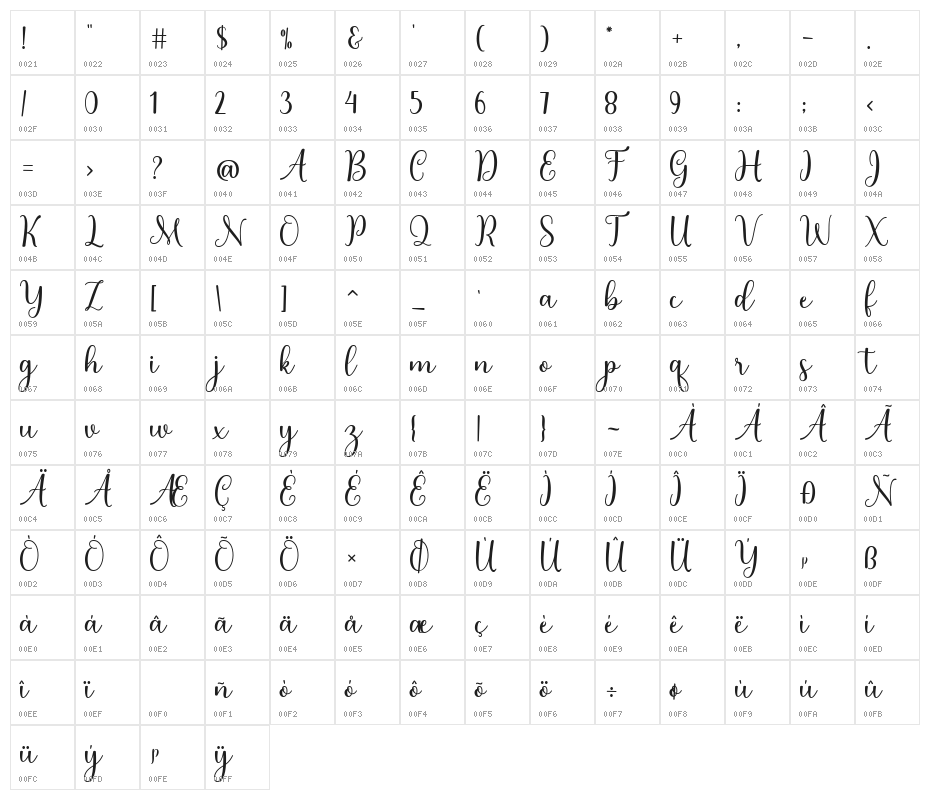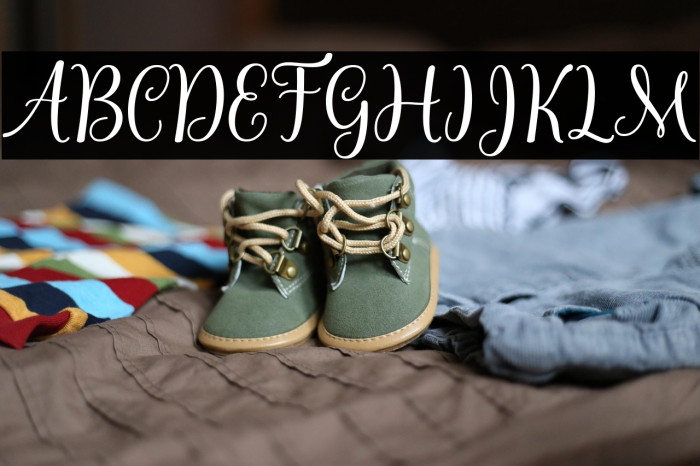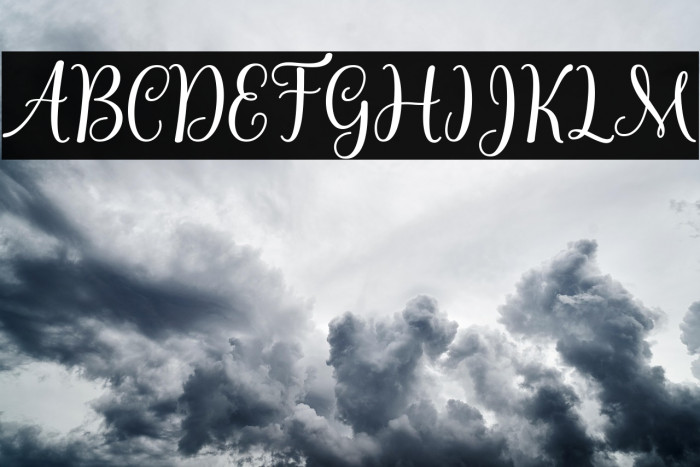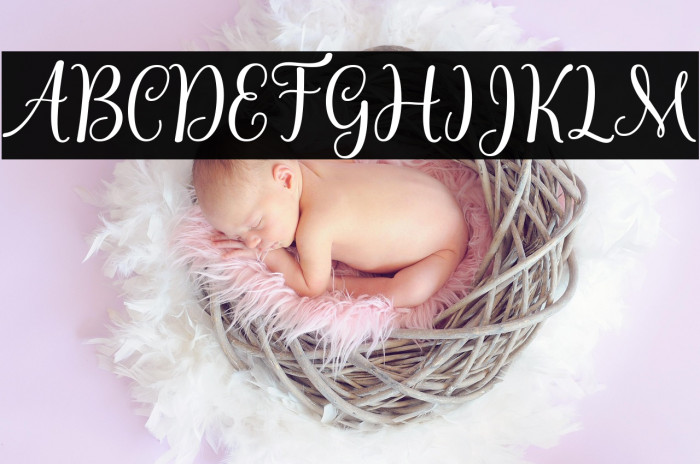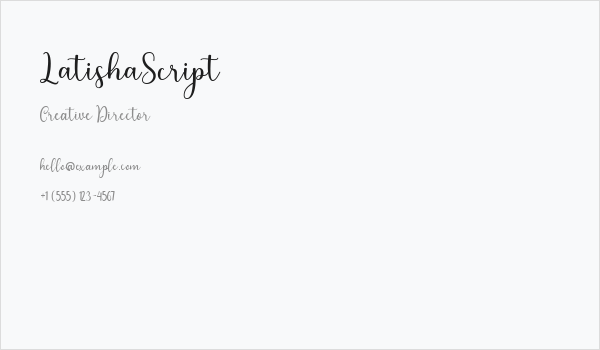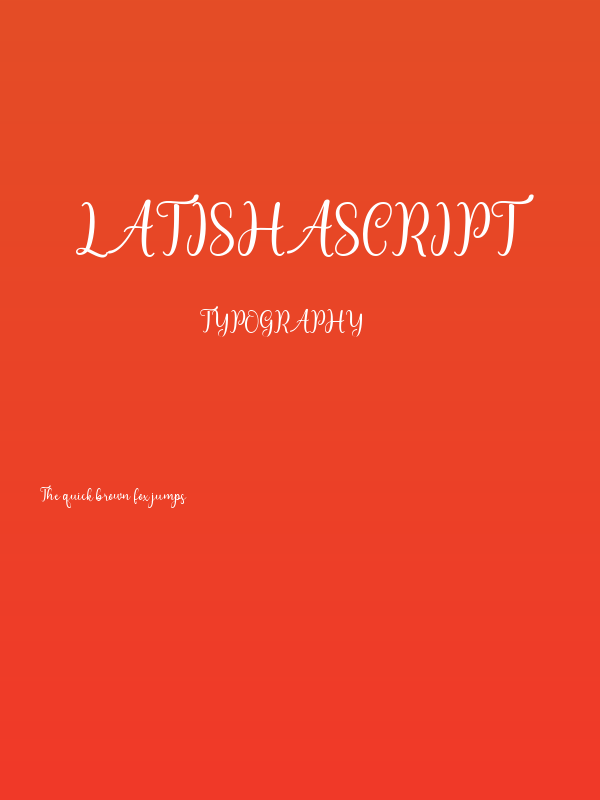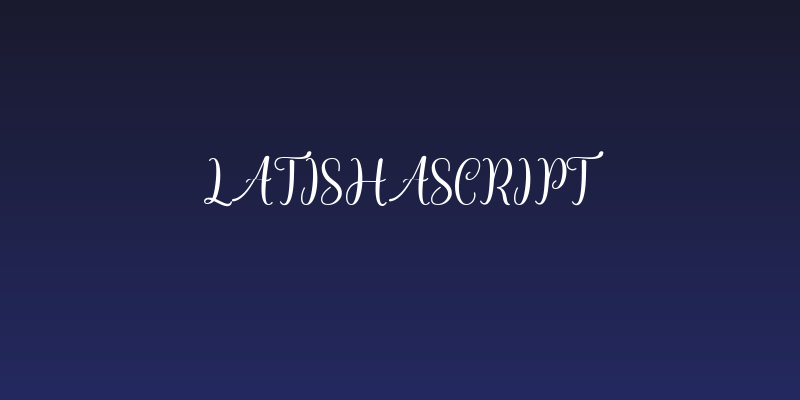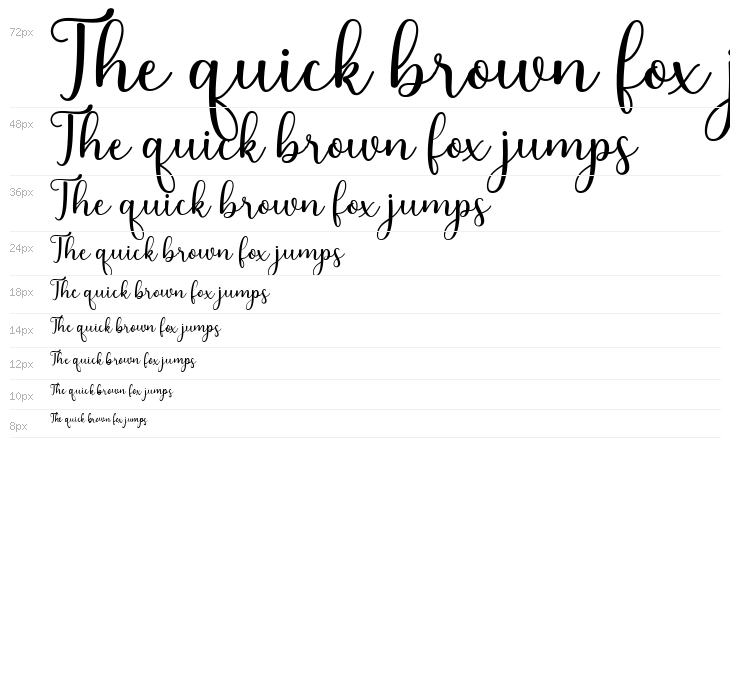
LatishaScript Font
LatishaScript Description
This elegant script font features a flowing, cursive style with smooth, rounded edges and graceful loops. The uppercase letters are tall and slender, with distinctive flourishes that add a touch of sophistication. The lowercase letters maintain a consistent flow, creating a harmonious and connected appearance. The numerals are bold and clear, ensuring readability. Special characters are designed with the same attention to detail, making them blend seamlessly with the rest of the font. This font exudes a sense of elegance and charm, making it ideal for projects that require a personal and artistic touch.
| Overall Style | Elegant, Artistic |
| Use Case | Logos, Invitations, Decorative text |
| Proposed Projects | Ideal for wedding invitations, greeting cards, branding, and elegant logo designs. |